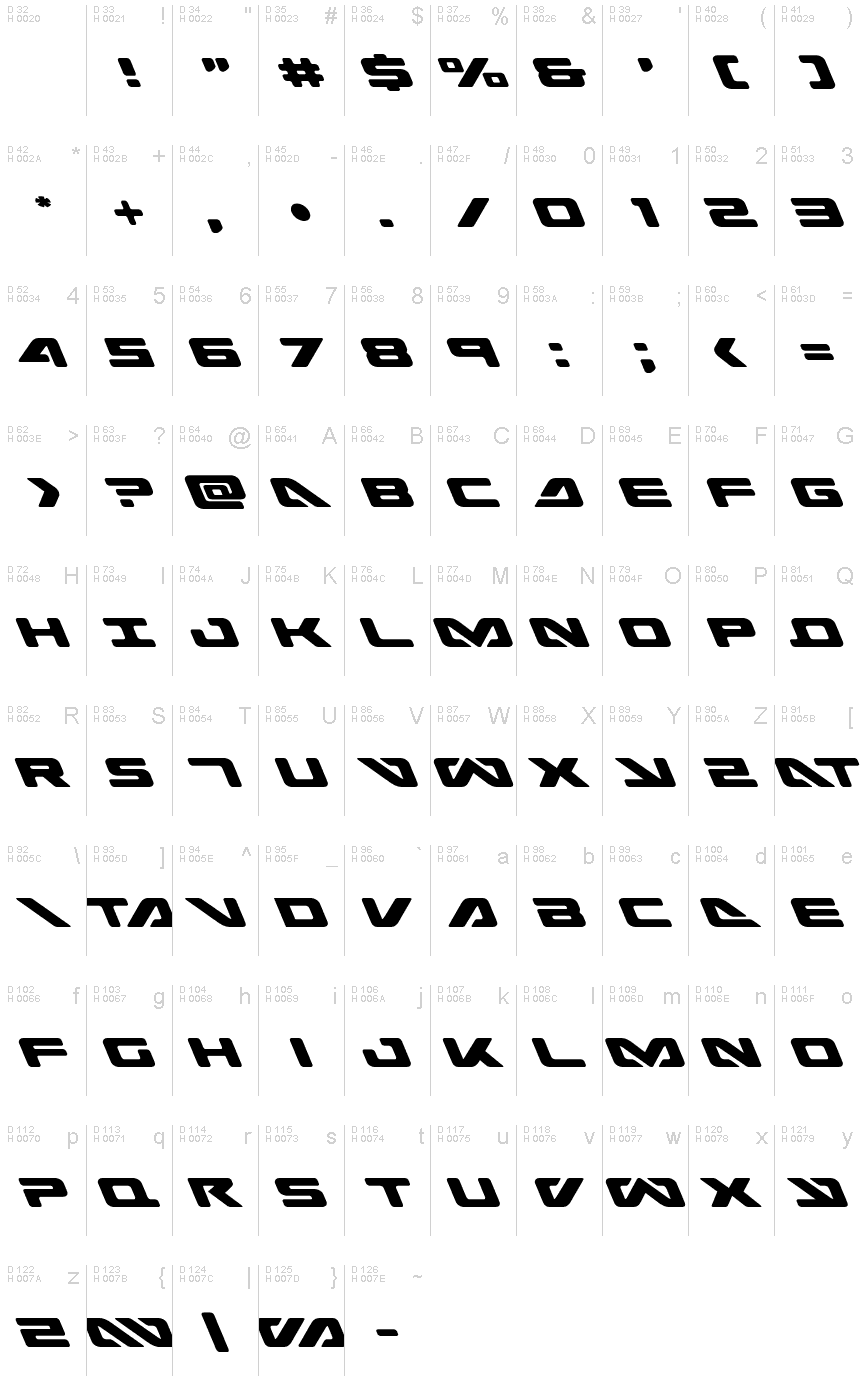
Sea-Dog Super-Leftalic is a display font that speaks to the future. Designed by the renowned Iconian Fonts, this extra-bold and extra-expanded typeface is perfect for creative projects that require an element of boldness and innovation. Its futuristic style evokes a sense of innovation, making it ideal for branding materials, posters, and even video game titles. The Sea-Dog Super-Leftalic font is sure to capture attention with its sleek lines and powerful presence. So whether you're designing a cutting-edge website or developing an out-of-this-world logo, this font has got you covered.
Sea-Dog Super-Leftalic